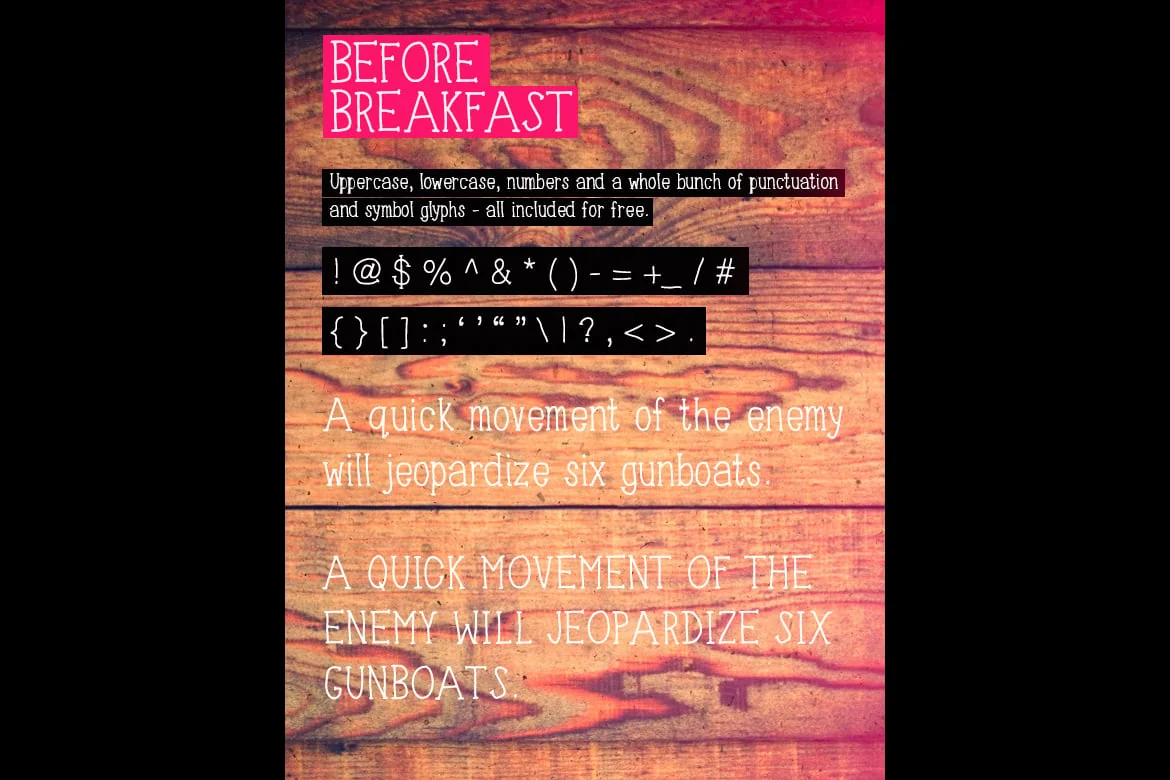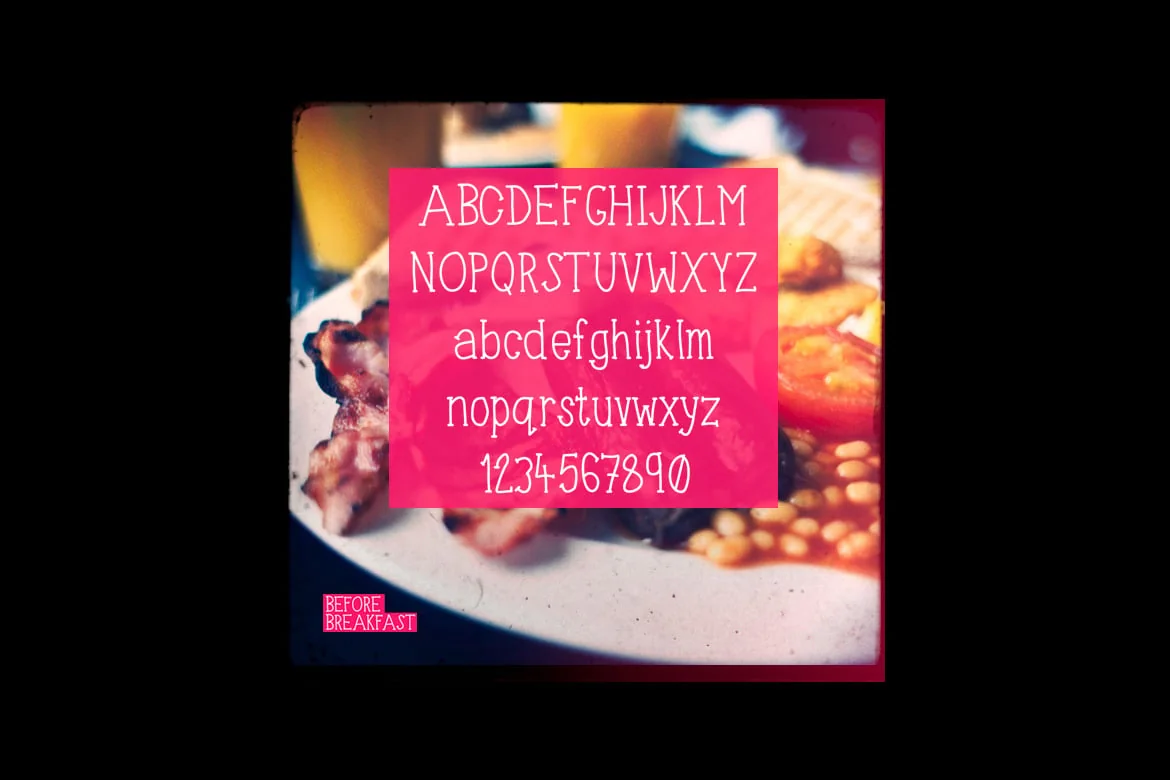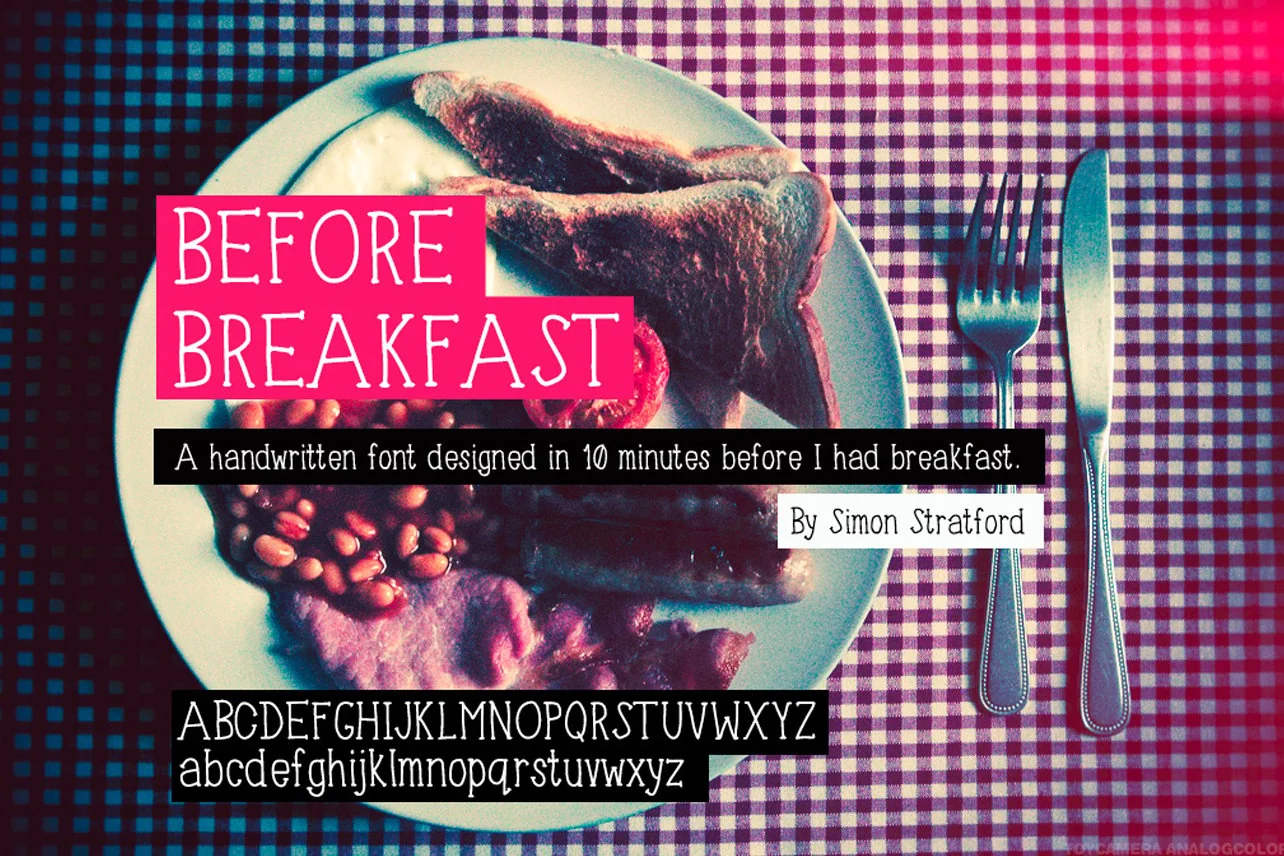
Before Breakfast font
I created this font on my Ipad in less than 10 minutes, then I had breakfast. So I decided to call it before breakfast.
It was literally drawn with my fat index finger—that’s a first for me.
It’s a fun, handwritten typeface that probably breaks every rule in typography. It has uppercase, lowercase, numbers, maths and punctuation glyphs.
It looks a bit cute, that’s a surprise for me, I’m like a bull in a china shop normally!
It has no ligatures or contextual alternatives. The font has Latin character set and supports
- Western European
- Central European
- South Eastern European Characters.
In total, it has over 300 glyphs.